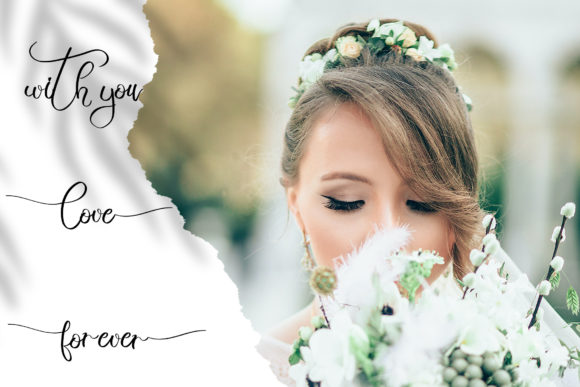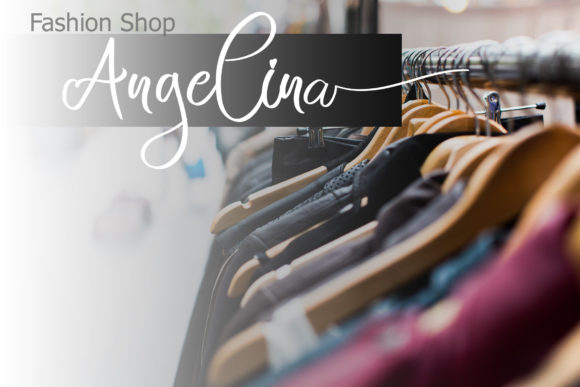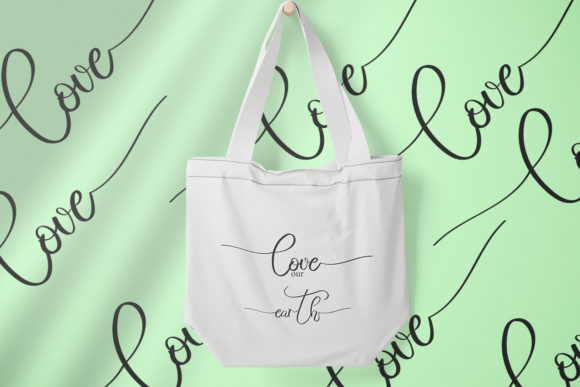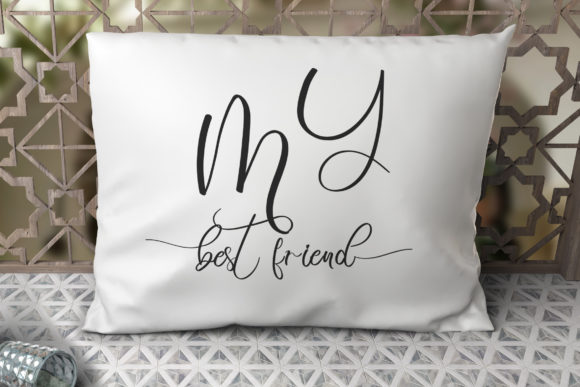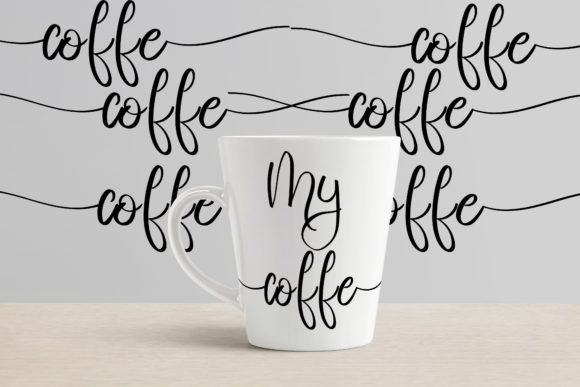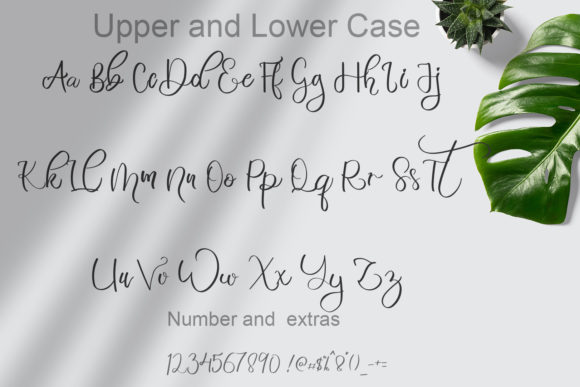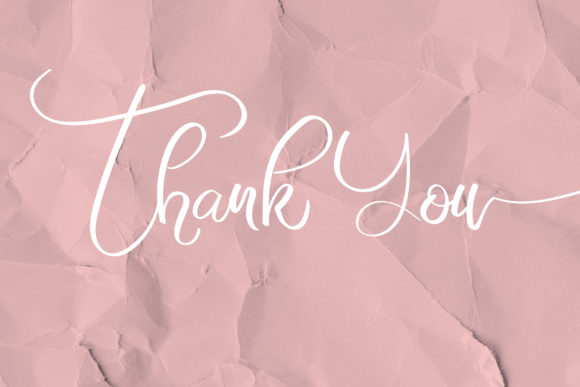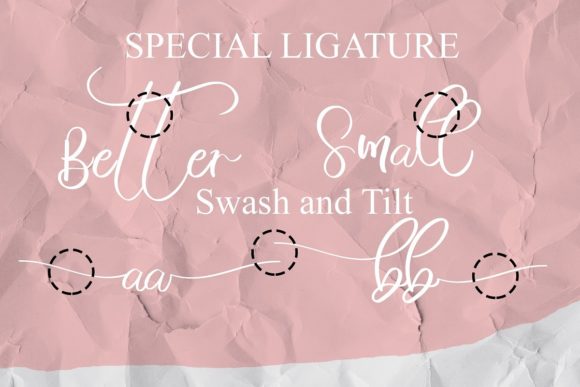
Bahagia Font
About Bahagia Font
Bahagia is a dazzling script font. This font is neatly crafted and highly detailed. Bahagia is PUA encoded which means you can access all glyphs and swashes with ease!